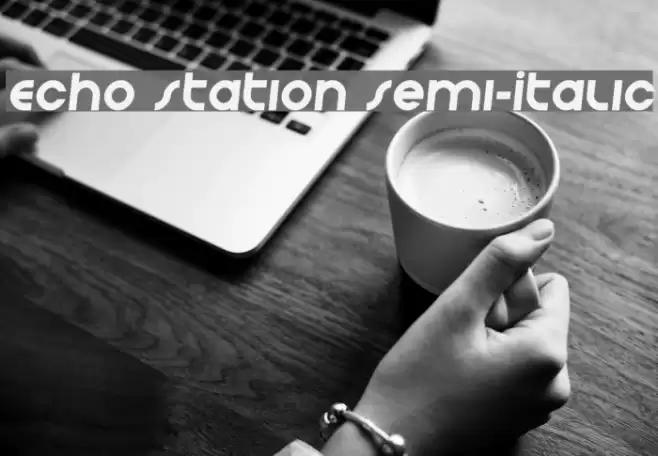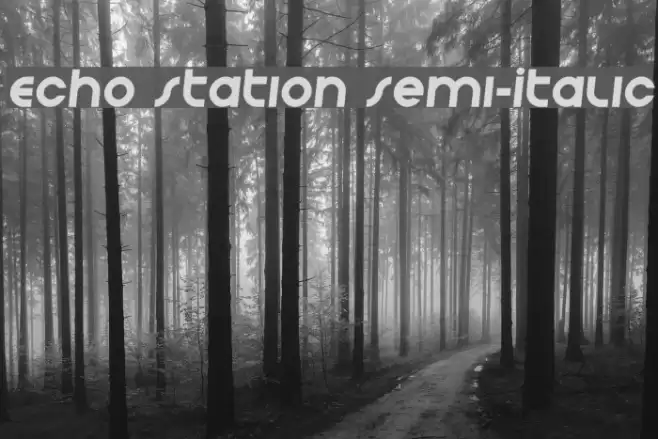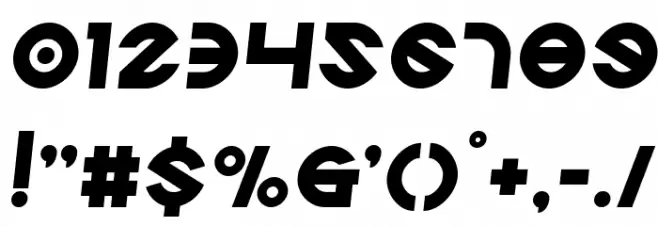
Echo Station Semi-Italic Font
Echo Station Semi-Italic Description
This font features a modern, geometric style with a semi-italic slant, giving it a dynamic and forward-leaning appearance. The characters are bold and rounded, with a consistent stroke width that conveys a sense of stability and strength. The design incorporates unique cutouts and angles, particularly noticeable in letters like 'A', 'E', and 'R', adding a futuristic and innovative touch. The numerals and special characters maintain this cohesive style, ensuring versatility across various applications. The overall aesthetic is clean and contemporary, making it suitable for a wide range of design projects.
A modern, geometric font with a semi-italic slant and bold, rounded characters from Uncategorized fonts.
- Proposed Projects: Ideal for tech branding, futuristic posters, digital interfaces, and modern advertising.
- Use Case: Headlines, Logos, Digital Interfaces